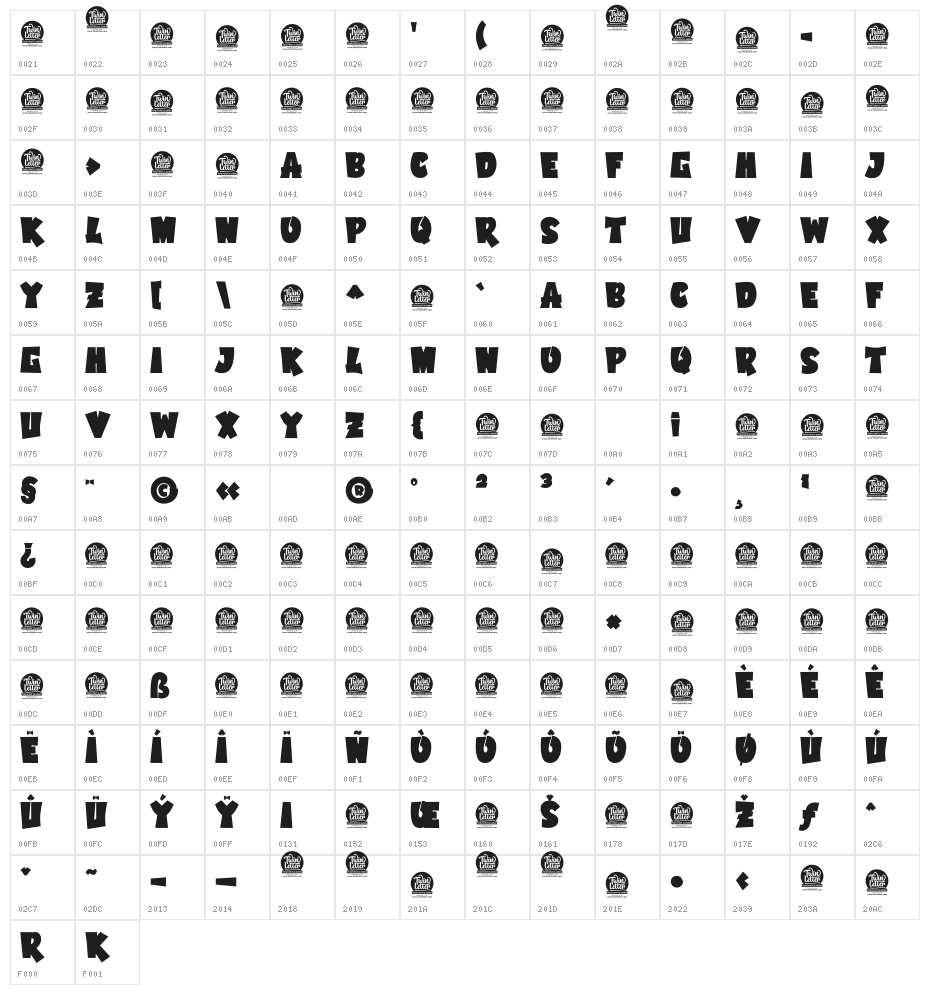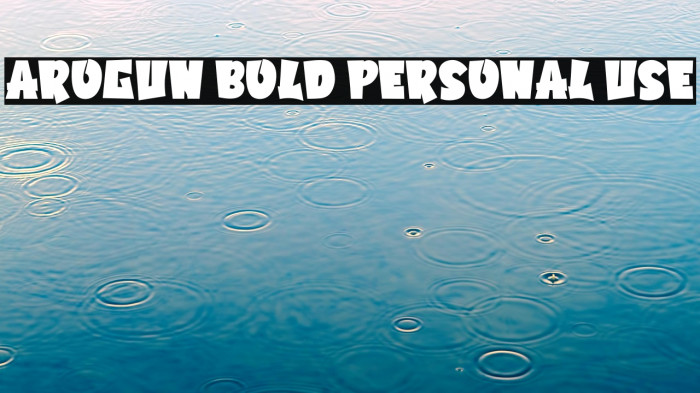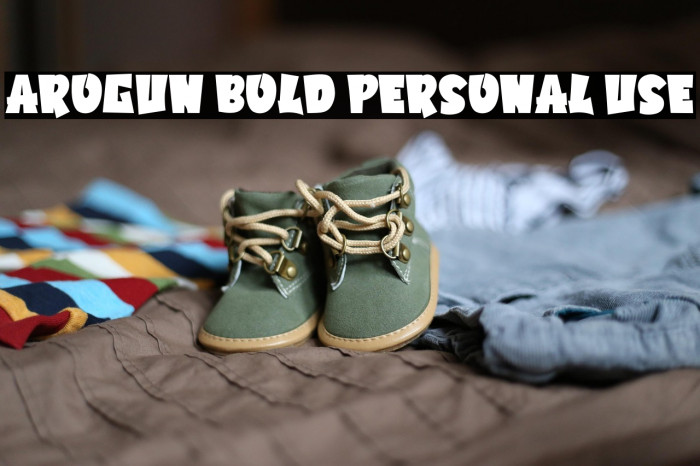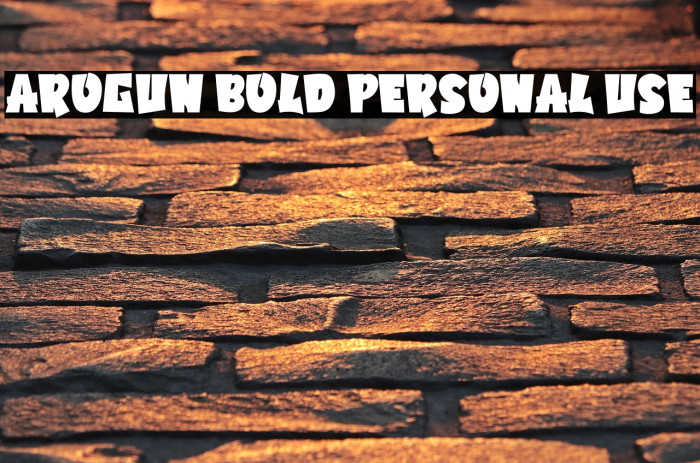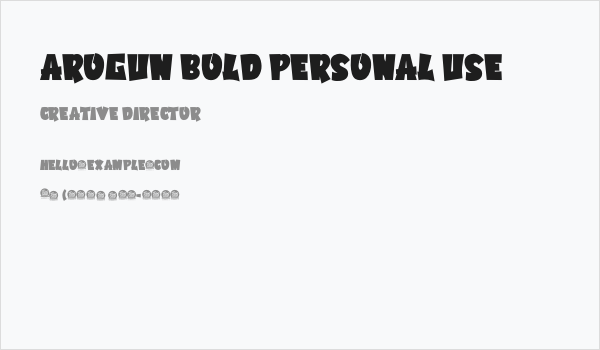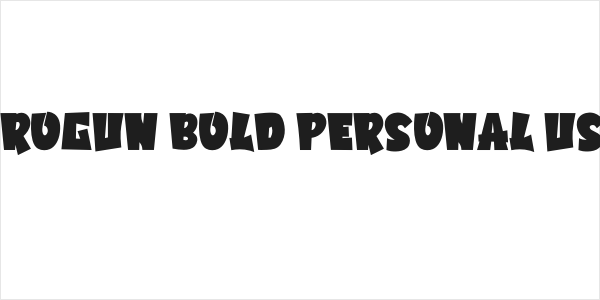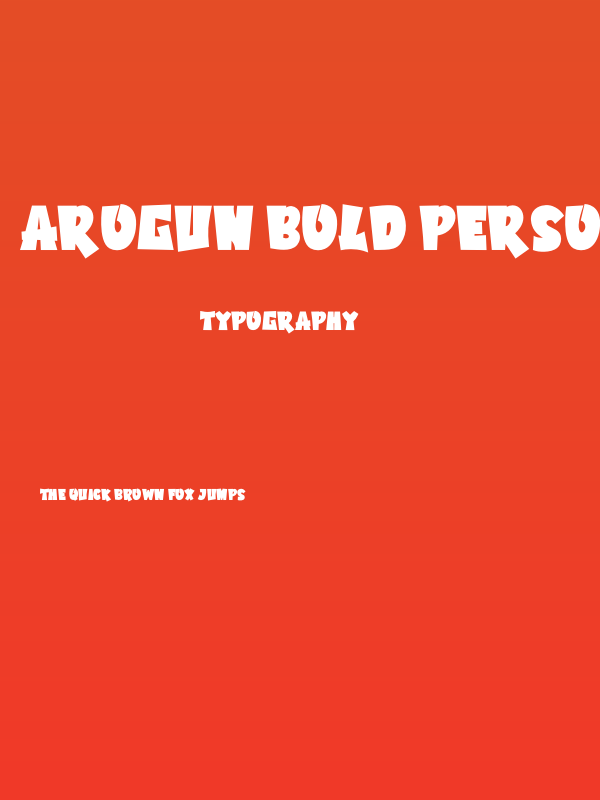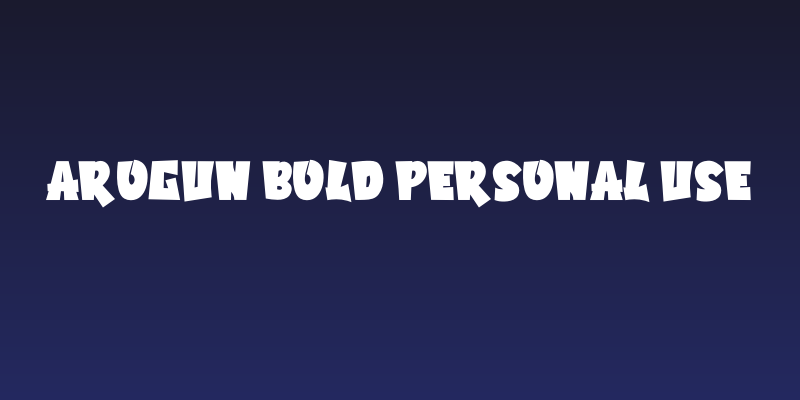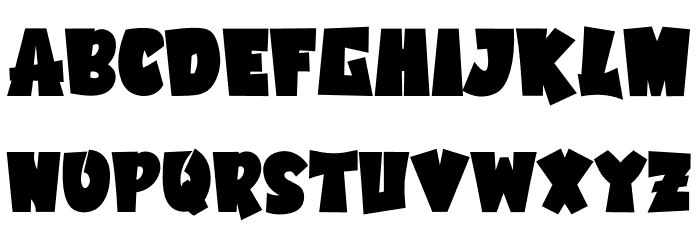
Arogun Bold Personal Use Font
Arogun Bold Personal Use Description
This bold and dynamic font features a playful and chunky design, characterized by its thick, heavy strokes and unique, angular shapes. Each letter is distinct, with exaggerated serifs and a sense of movement that gives the typeface a lively and energetic feel. The uppercase and lowercase letters maintain a consistent style, ensuring readability while adding a touch of whimsy. The numbers and special characters are equally bold, fitting seamlessly with the overall aesthetic. This font is perfect for making a strong visual impact and is ideal for creative projects that require a standout typeface.
| Proposed Projects | Ideal for posters, logos, branding, and any project needing a bold, eye-catching typeface. |